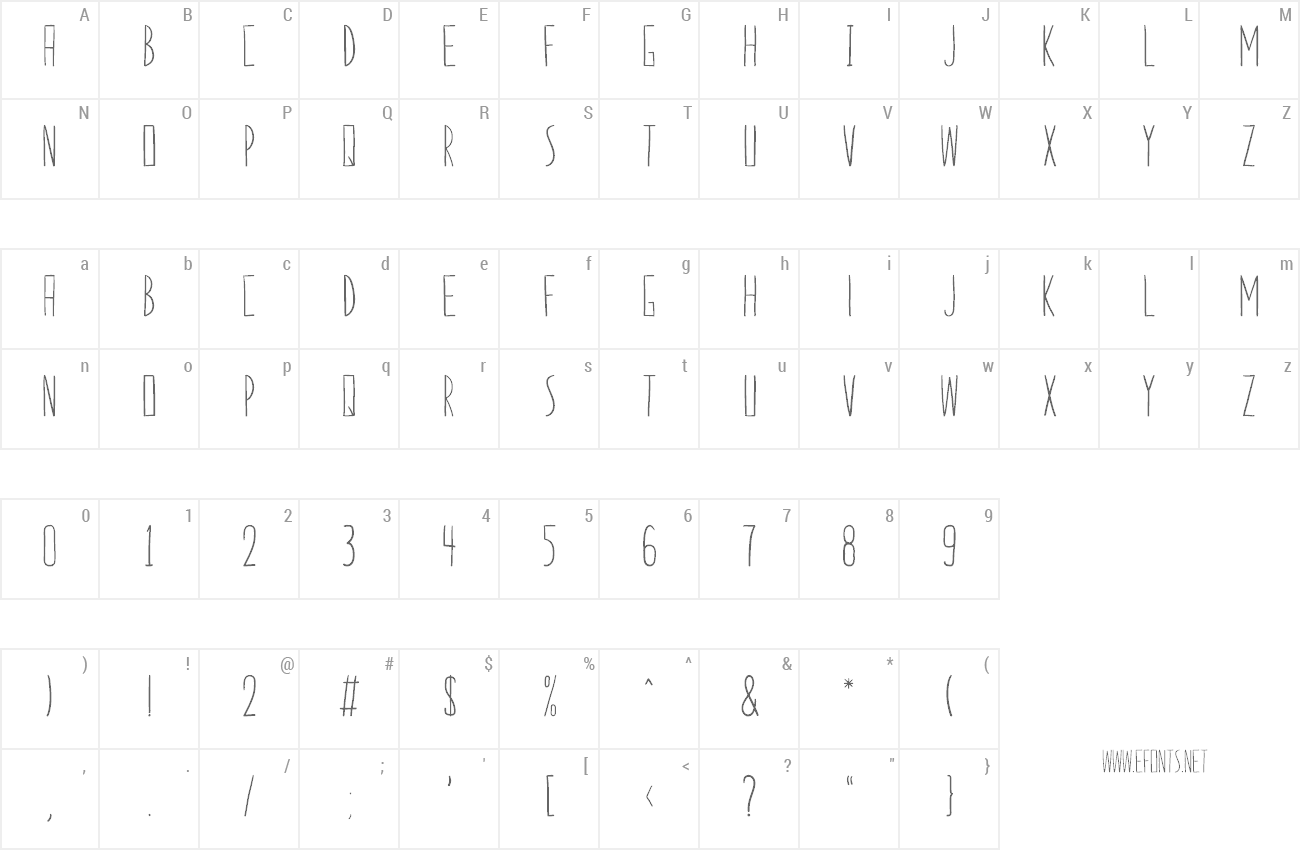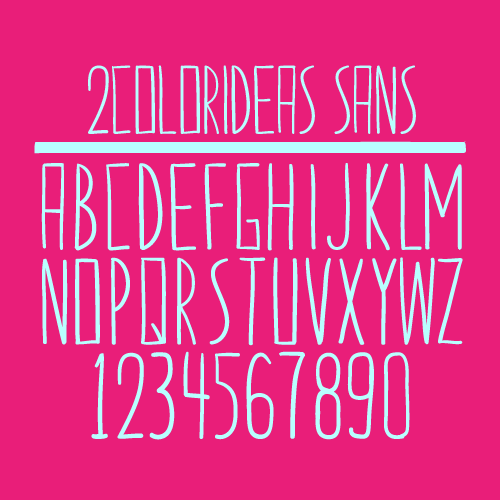
| Font name: | 2 Colorideas Sans |
| Author: | Daniel Kano |
| Note by Daniel Kano | |
This is the typeface I draw for my tumblr. It is composed by illustrations made with only 2 colors. There's a new post everyday. You can check it out: http://2colorideas.tumblr.com/ It is just for some fun and inspiration. So feel free to use it in your own way! |